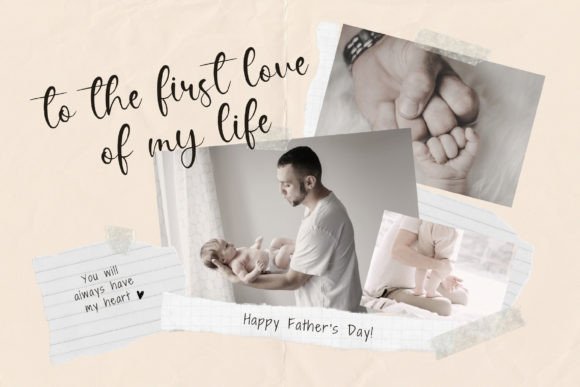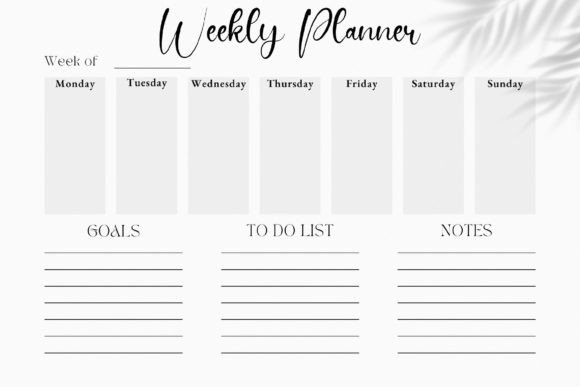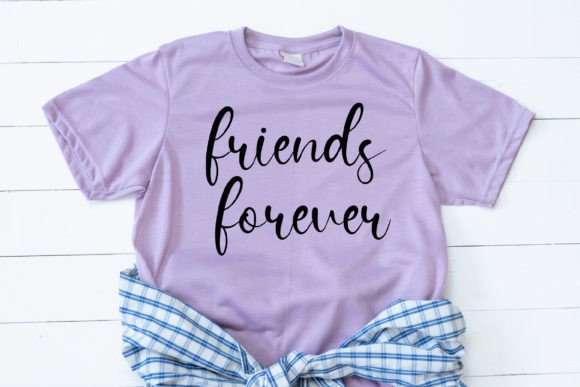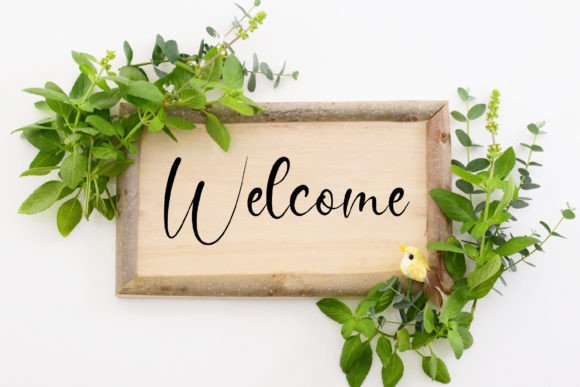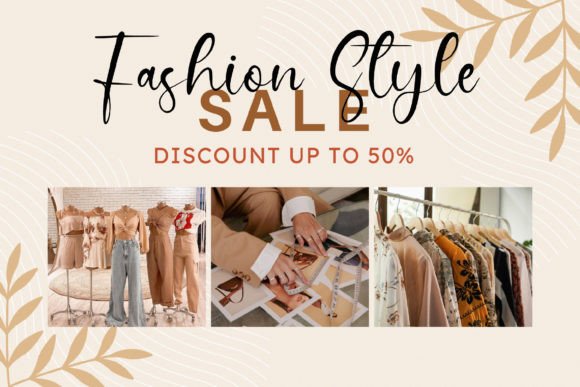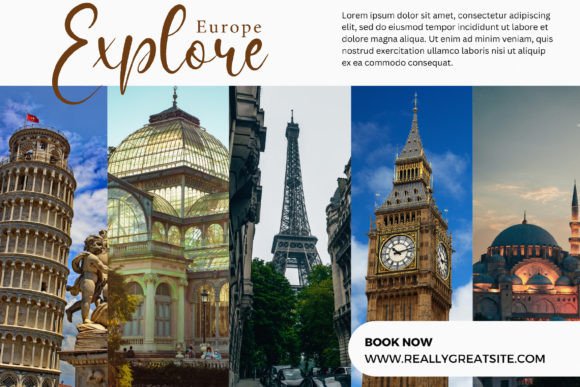
Unleash the Seductive Charm of Bohemifarms Font: Elevate Your Designs with Elegance and Allure
In the world of typography, few fonts manage to evoke the same level of sophistication and allure as Bohemifarms. This seductive and indulgent typeface has been turning heads with its elegant, curvaceous letterforms and subtle sensuality, making it the perfect choice for designers and crafters looking to add a touch of luxury to their projects. Whether you’re creating captivating headlines, luxurious branding materials, or sophisticated packaging, Bohemifarms font is sure to leave a lasting impression.
The Allure of Bohemifarms Font
Bohemifarms font is more than just a typeface – it’s an experience. Its unique charm and mystique evoke feelings of guilty pleasures, making it an excellent choice for projects seeking to stand out with a hint of forbidden indulgence. With Bohemifarms, you can add a level of sophistication and elegance to your designs that’s sure to captivate your audience. The font’s seductive curves and subtle nuances make it perfect for creating luxurious and high-end branding materials that exude refinement and poise.
Perfect for Captivating Headlines and Branding Materials
Bohemifarms font is specifically designed to make a statement. Its elegant letterforms and flowing curves make it perfect for creating captivating headlines that grab attention and refuse to let go. Whether you’re designing a luxury brand logo, creating a high-end packaging design, or crafting a sophisticated advertising campaign, Bohemifarms font is the perfect choice. The font’s luxurious feel and sophisticated vibe make it an excellent choice for brands looking to establish themselves as high-end and refined.
Sophisticated Packaging and Design Projects
Bohemifarms font is not just limited to digital designs; it’s also perfect for creating sophisticated packaging designs that stand out on store shelves. The font’s unique charm and elegance make it an excellent choice for luxury brands looking to create a lasting impression. Whether you’re designing a high-end product label, a luxury brand catalog, or a sophisticated business card, Bohemifarms font is sure to elevate your design to the next level.
What Makes Bohemifarms Font Stand Out?
So, what makes Bohemifarms font stand out from the rest? Here are a few key features that make this typeface truly unique:
- Elegant and curvaceous letterforms: Bohemifarms font features elegant and flowing curves that make it perfect for creating sophisticated and luxurious designs.
- Subtle sensuality: The font’s subtle nuances and seductive charm make it perfect for projects seeking to evoke feelings of guilty pleasures.
- Unique charm and mystique: Bohemifarms font has a unique charm and mystique that sets it apart from other typefaces, making it perfect for designers looking to create something truly unique.
Tips for Using Bohemifarms Font
Here are a few tips for using Bohemifarms font in your designs:
- Use it sparingly: Bohemifarms font is a statement piece, so use it sparingly to create maximum impact.
- Pair it with neutral fonts: Pair Bohemifarms font with neutral fonts to create a striking contrast and make your design stand out.
- Experiment with different colors: Bohemifarms font looks stunning in a range of colors, so experiment with different hues to find the perfect fit for your design.
Bohemifarms font is a seductive and indulgent typeface that’s perfect for designers and crafters looking to add a touch of elegance and allure to their projects. With its elegant letterforms, subtle sensuality, and unique charm, this font is sure to elevate your designs to the next level. Whether you’re creating captivating headlines, luxurious branding materials, or sophisticated packaging, Bohemifarms font is the perfect choice. So why settle for ordinary when you can create something truly extraordinary with Bohemifarms font?